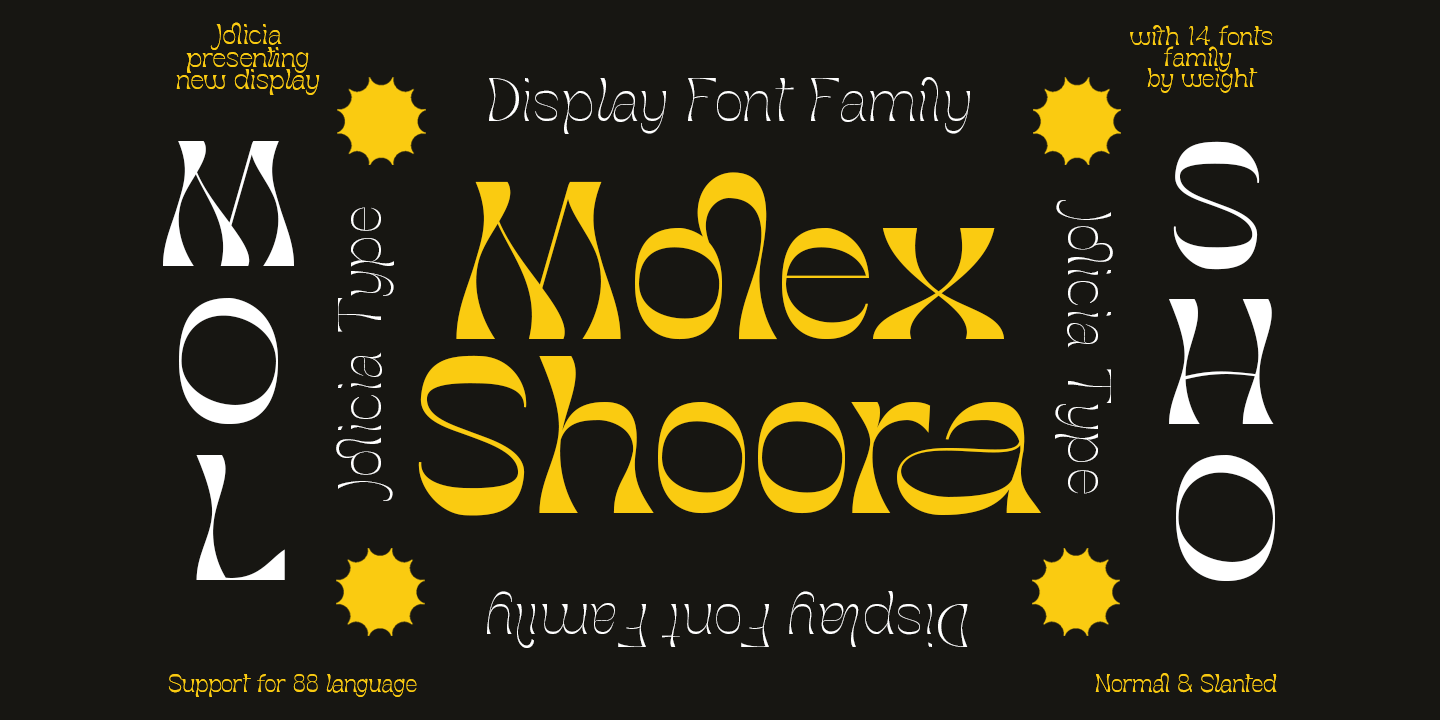
Molex Shoora Font Free Download – Bold and Dynamic Typeface for Impactful Designs
Searching for a font that packs a punch with boldness and modern style? Molex Shoora Font Free Download is a dynamic typeface that brings energy and personality to your creative projects. Perfect for branding, posters, headlines, and digital media, Molex Shoora stands out with its strong lines and distinctive character shapes.
This font offers excellent readability while making a statement, ensuring your message grabs attention. Whether you’re designing logos, advertisements, or social campaigns, Molex Shoora adds a contemporary edge that elevates your work.
Make your designs unforgettable with Molex Shoora — a font that delivers bold impact and modern flair.